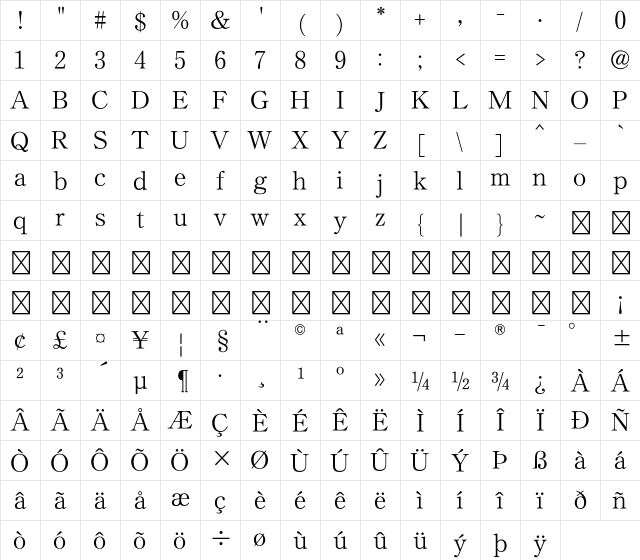
Ro Hon MinKok Pr5N Book
Foundry: TypeBank Co., Ltd.
Designer: Takashi Yoneta
Design Context for Ro Hon MinKok Pr5N
Ro Hon MinKok Pr5N is a composed and adaptable typeface that performs quietly and consistently across a wide range of design contexts.